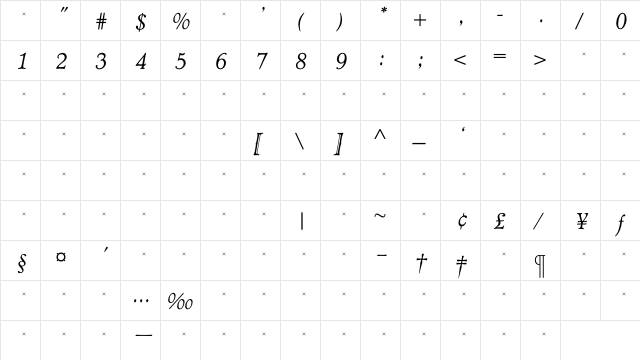
TCAdministerBookItalTab Regular
Design Context for TCAdministerBookItalTab Typeface
TCAdministerBookItalTab is a composed and adaptable typeface that performs quietly and consistently across a wide range of design contexts.
Pro Tip: Use TCAdministerBookItalTab in both headline and body roles to test its range before committing to a single application.